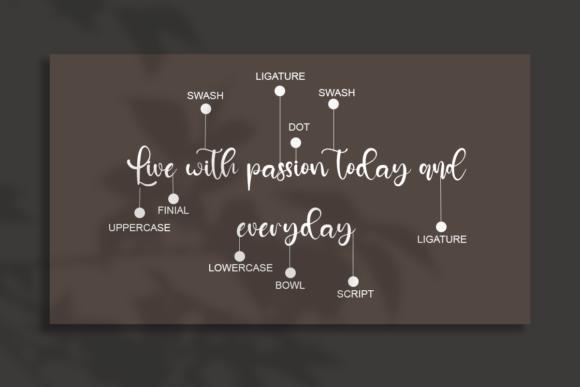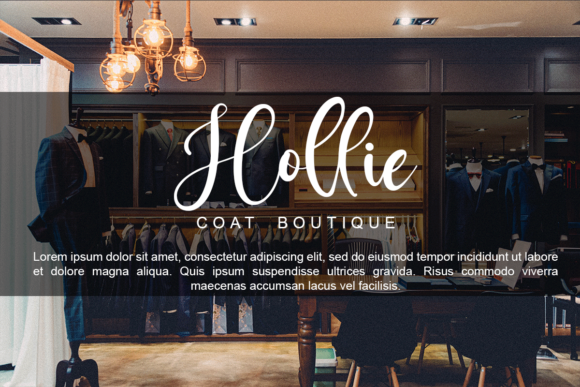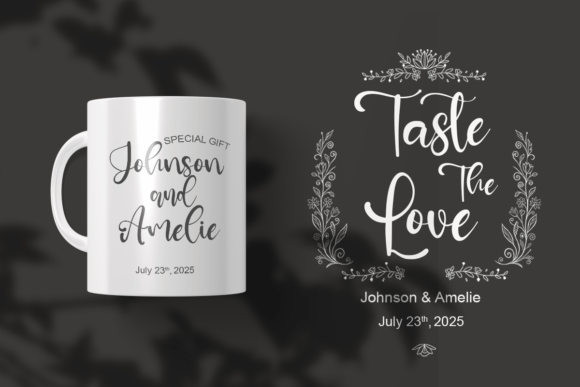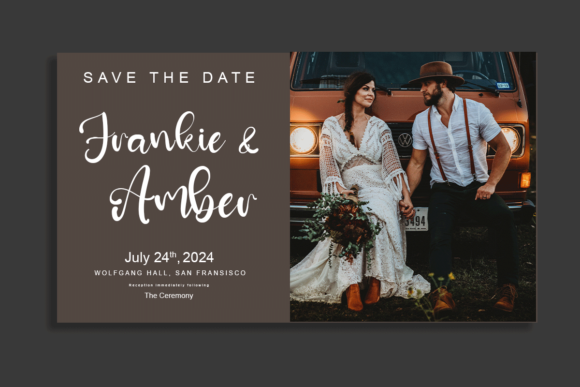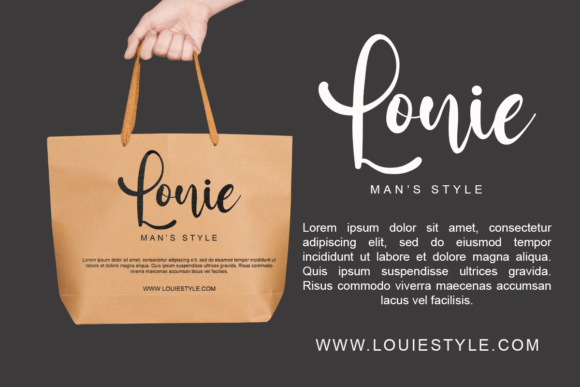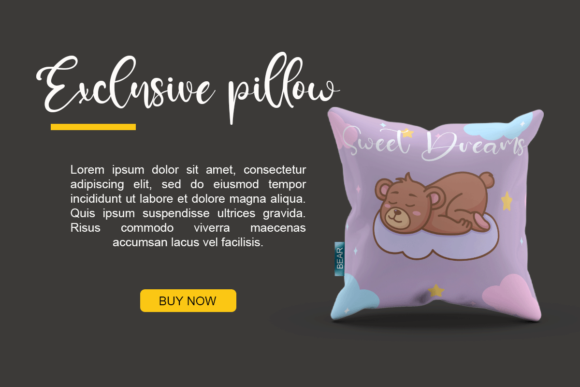
Introducing Hanabera Font: The Sweet and Cursive Handwritten Font for Your Design Needs
Are you a designer or crafter looking for a font that can add a touch of sweetness and romance to your projects? Look no further than Hanabera Font! This beautiful, cursive handwritten font is perfect for a variety of design ideas and is sure to bring a joyful and romantic feel to your work.
What is Hanabera Font?
Hanabera Font is a unique and elegant font that is perfect for designers and crafters who want to add a personal touch to their projects. This font is characterized by its sweet and cursive handwritten style, which gives it a warm and inviting feel. The font is highly versatile and can be used for a wide range of design projects, from wedding invitations and greeting cards to branding and packaging.
Features of Hanabera Font
So, what makes Hanabera Font so special? Here are just a few of its key features:
- Sweet and Cursive Handwritten Style: Hanabera Font has a beautiful, cursive handwritten style that is sure to add a touch of elegance and sophistication to your designs.
- Highly Versatile: This font is perfect for a wide range of design projects, from wedding invitations and greeting cards to branding and packaging.
- Easy to Read: Despite its elegant and cursive style, Hanabera Font is highly legible and easy to read, making it perfect for body text and headlines.
- Unique and Eye-Catching: Hanabera Font has a unique and eye-catching style that is sure to make your designs stand out from the crowd.
Uses of Hanabera Font
Hanabera Font is a highly versatile font that can be used for a wide range of design projects. Here are just a few ideas to get you started:
- Wedding Invitations: Hanabera Font is perfect for wedding invitations, adding a touch of romance and elegance to your designs.
- Greeting Cards: This font is also great for greeting cards, adding a personal touch to your messages.
- Branding and Packaging: Hanabera Font can be used for branding and packaging, adding a unique and eye-catching touch to your products.
- Social Media Graphics: This font is also perfect for social media graphics, adding a touch of elegance and sophistication to your posts.
Tips for Using Hanabera Font
Here are a few tips for using Hanabera Font in your designs:
- Pair with Other Fonts: Hanabera Font pairs well with other fonts, such as sans-serif fonts and script fonts.
- Use for Headlines and Body Text: This font is perfect for both headlines and body text, adding a touch of elegance and sophistication to your designs.
- Experiment with Colors: Hanabera Font looks great in a variety of colors, from soft pastels to bold and bright hues.
In conclusion, Hanabera Font is a beautiful and versatile font that is perfect for designers and crafters who want to add a touch of sweetness and romance to their projects. With its sweet and cursive handwritten style, highly legible design, and unique and eye-catching features, Hanabera Font is sure to bring a joyful and romantic touch to your work. So why not give it a try and see the difference it can make in your designs?
Hanabera Font – Frequently Asked Questions
Here are a few frequently asked questions about Hanabera Font:
- What is Hanabera Font?: Hanabera Font is a sweet and cursive handwritten font that is perfect for designers and crafters who want to add a touch of elegance and sophistication to their projects.